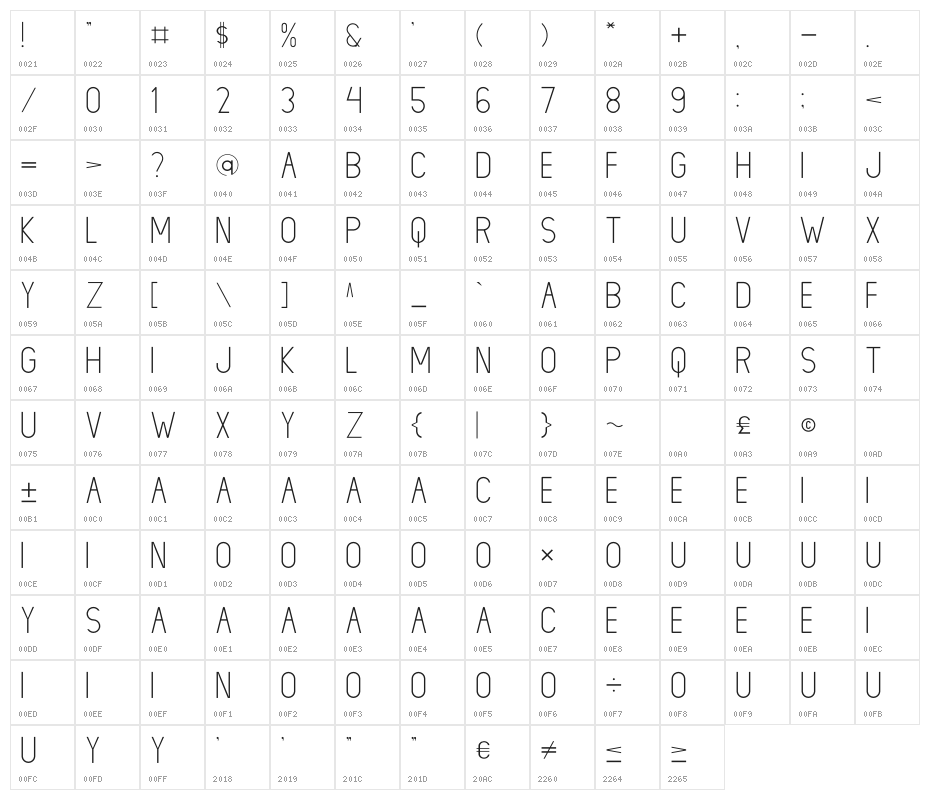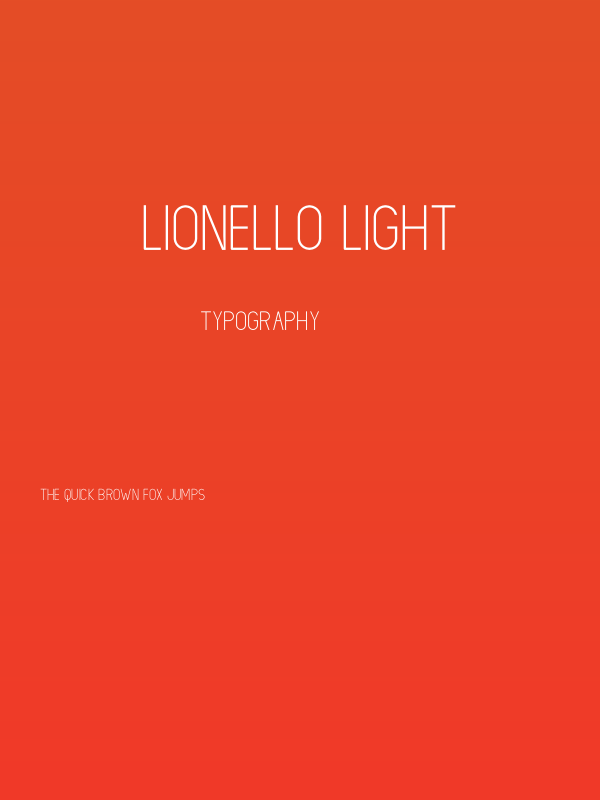
LIONELLO Light Font
LIONELLO Light Description
This font features a clean, geometric design with a modern aesthetic. The characters are constructed with a consistent stroke width, giving it a uniform appearance. The uppercase and lowercase letters maintain a similar height, contributing to its minimalist style. The numerals are straightforward and align well with the overall design. Special characters are included, matching the font's sleek and contemporary look. The font's simplicity and clarity make it versatile for various design applications.
| Proposed Projects | Ideal for branding, editorial design, web design, and corporate materials due to its clean and professional appearance. |